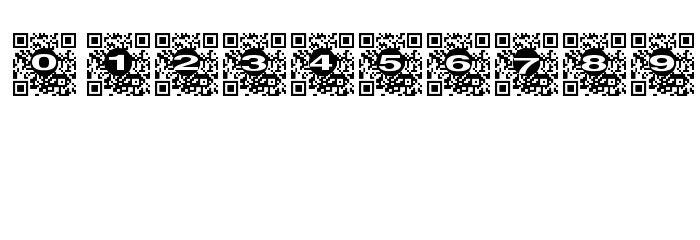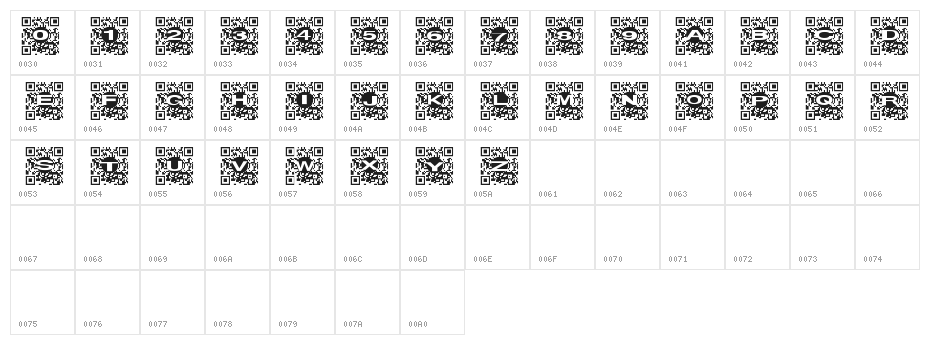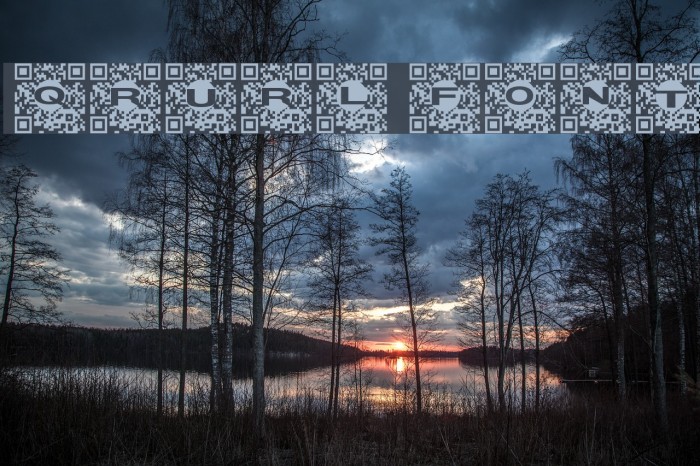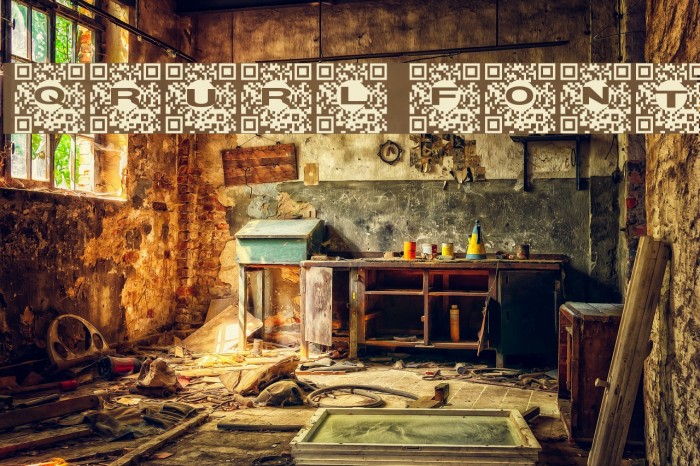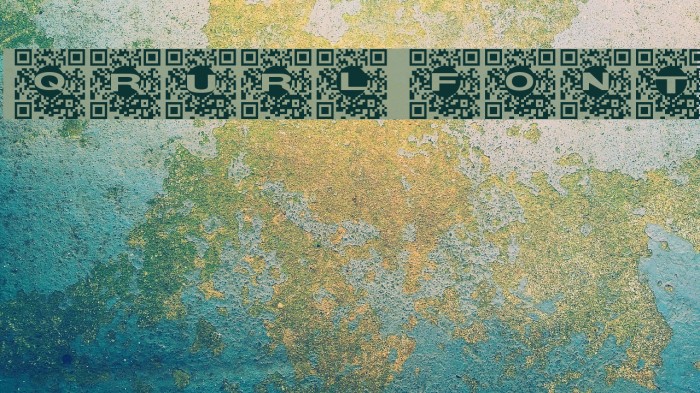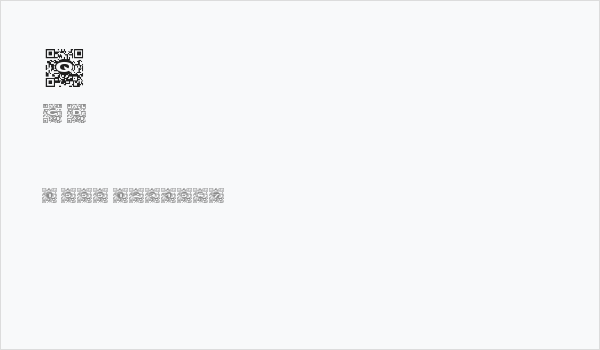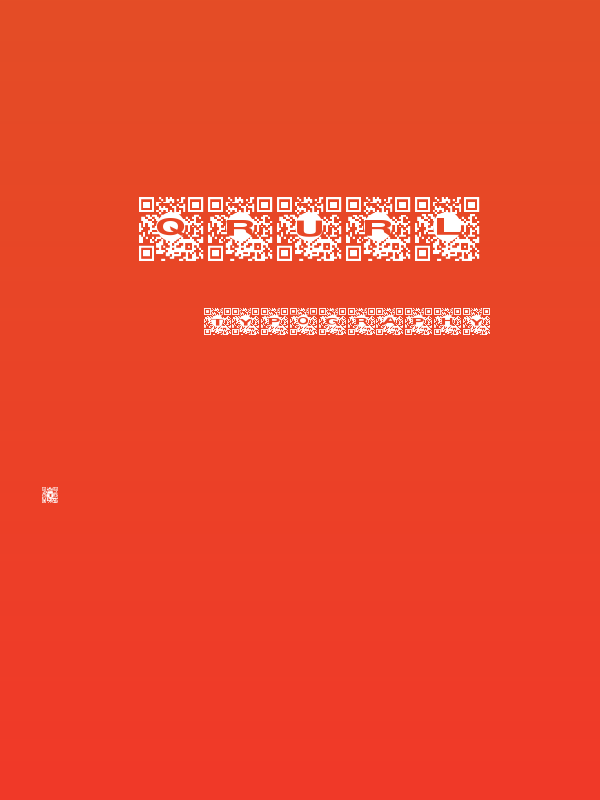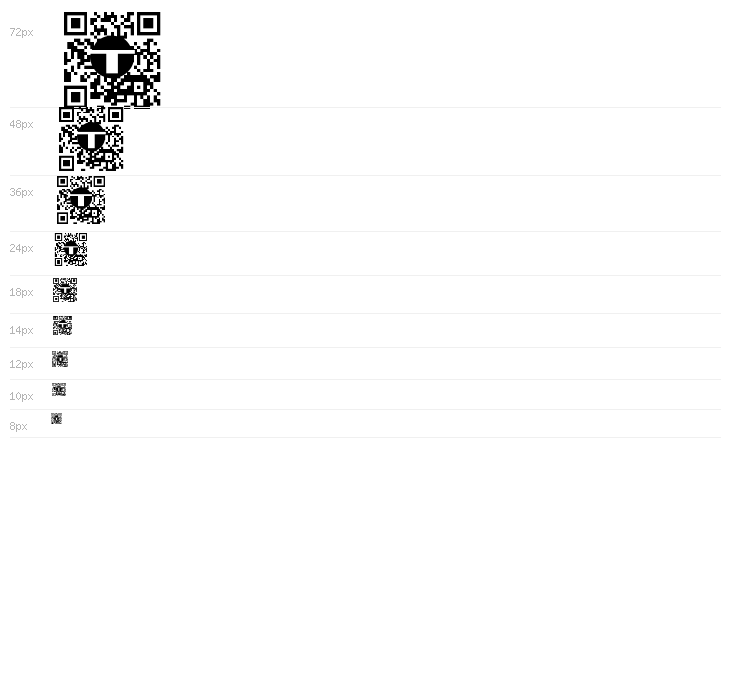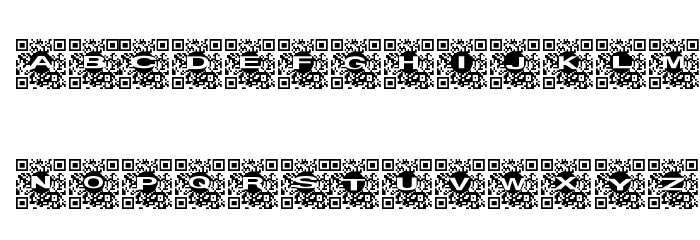
Qrurl Font
Qrurl Description
This is not a valid font. The image displays a series of QR codes, each containing a letter or number. QR codes are two-dimensional barcodes that can store data and are not used as a traditional font for text representation. They are typically scanned by devices to retrieve the encoded information.